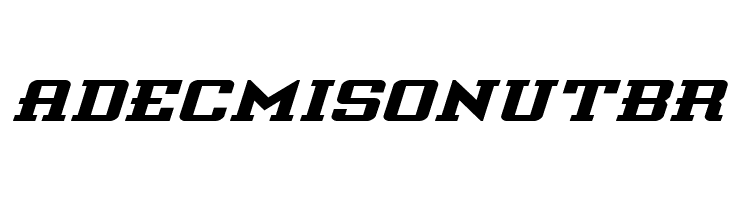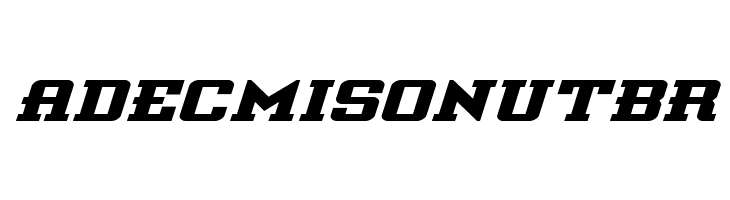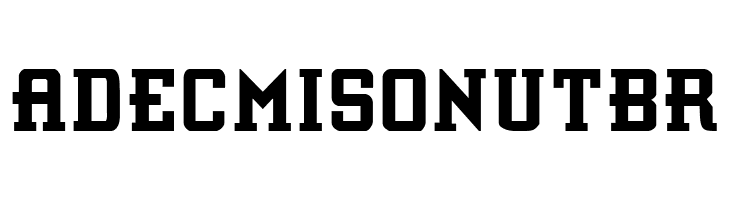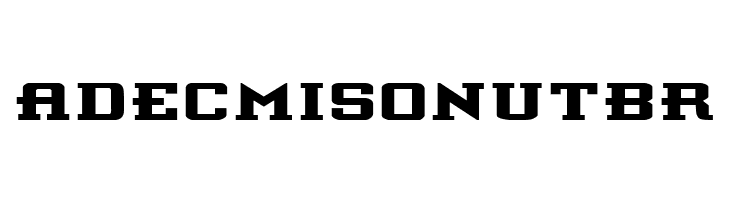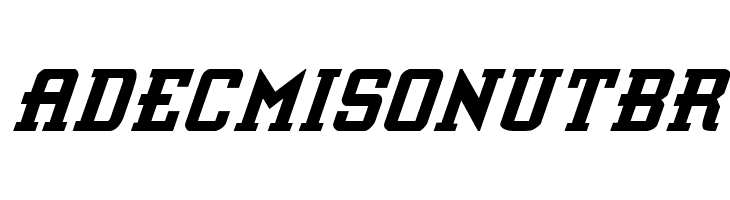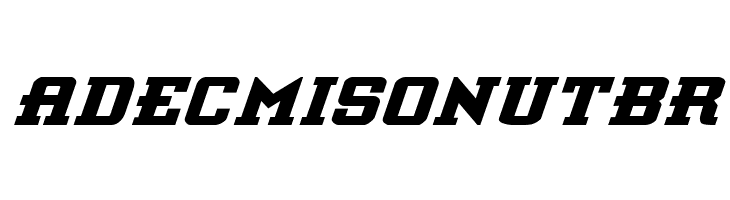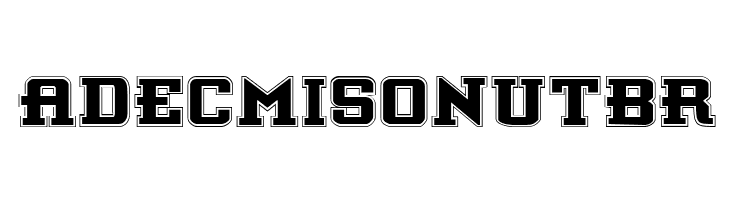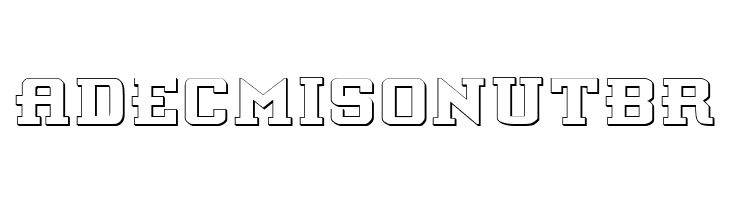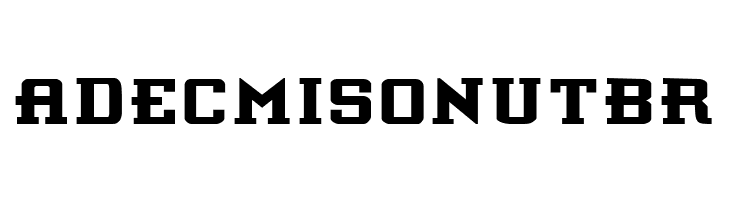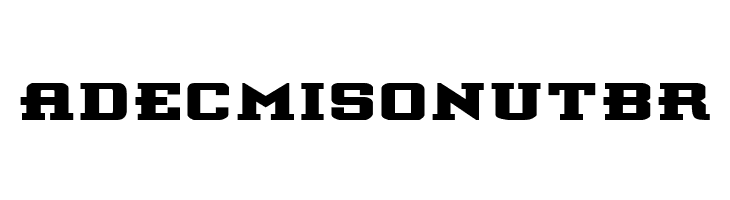
Interceptor Italic Font
A bold, italicized font with sharp angles and a dynamic presence.
Interceptor Font
A bold, geometric font with a strong, industrial aesthetic.
Interceptor Bold Italic Font
A bold, italicized font with sharp angles and a dynamic, modern style.
Interceptor Pro Font
A bold, blocky font with a double-outline effect, ideal for impactful headlines.
Interceptor Condensed Font
A bold, condensed font with geometric shapes and a strong, impactful presence.
Interceptor Condensed Italic Font
A bold, condensed italic font with angular lines and dynamic style.
Interceptor Bold ExpItalic Font
A bold, italic font with a dynamic and modern style.
Interceptor Bold Font
A bold, blocky font with a strong geometric design.
Interceptor Pro Italic Font
A bold, italicized font with a three-dimensional outline effect.
Interceptor Bold Expanded Font
A bold, expanded font with geometric shapes and a strong, industrial style.
Interceptor Expanded Font
A bold, expanded font with a geometric, industrial style.
Interceptor Rotalic Font
A bold, italicized font with angular, geometric characters.
Interceptor Expanded Italic Font
A bold, expanded, and italic font with a modern, dynamic style.
Interceptor Punch Font
A bold, geometric font with a three-dimensional, shadowed effect.
Interceptor Bold Expanded Italic Font
A bold, expanded, and italic font with a dynamic and energetic style.
Interceptor Shadow Font
A bold, outlined font with a shadow effect, ideal for vintage-inspired designs.
Interceptor Punch Italic Font
A bold, italic font with a dynamic, outlined style and geometric structure.
Interceptor Shadow Italic Font
Bold, italicized font with a shadow effect for a dynamic, three-dimensional look.
Interceptor Semi-Italic Font